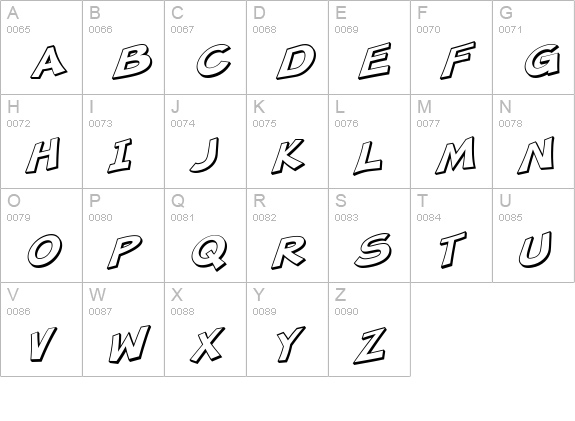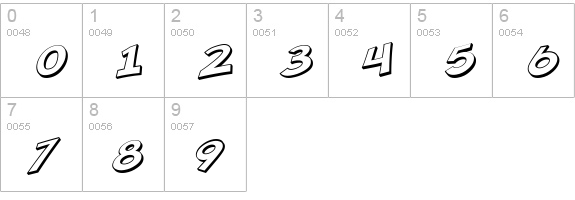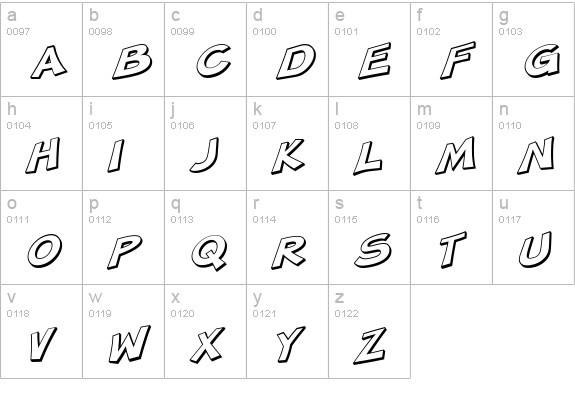
SF Minced Meat Shaded Oblique Font Details
SF Minced Meat Shaded Oblique is a distinctive, italic variant in the SF typeface family \xE2\x80\x94 well suited to design and typography projects.
Introducing SF Minced Meat Shaded Oblique, a bold and striking font that is sure to make a statement in any design project. This unique typeface combines the elegance of a shaded oblique style with the edginess of minced meat, resulting in a truly captivating visual experience. Designed with meticulous attention to detail, SF Minced Meat Shaded Oblique features sharp and angular letterforms that exude a sense of modernity and sophistication. Its bold weight and slanted appearance add a dynamic touch, making it perfect for headlines, logos, branding materials, and more. What sets SF Minced Meat Shaded Oblique apart is its versatility and ability to adapt to various design needs. Whether you're working on a cutting-edge tech startup, a trendy fashion brand, or a gritty urban project, this font will effortlessly convey your message with its distinctive style. But what makes SF Minced Meat Shaded Oblique even more enticing is that it is freely available to download at FontsMarket.com. Yes, you read that right – this incredible font can be yours without any cost. Simply visit FontsMarket.com, and with just a few clicks, you can have this remarkable typeface at your disposal. So, don't miss out on this opportunity to enhance your designs with the captivating allure of SF Minced Meat Shaded Oblique. Download it today and let your creativity run wild.